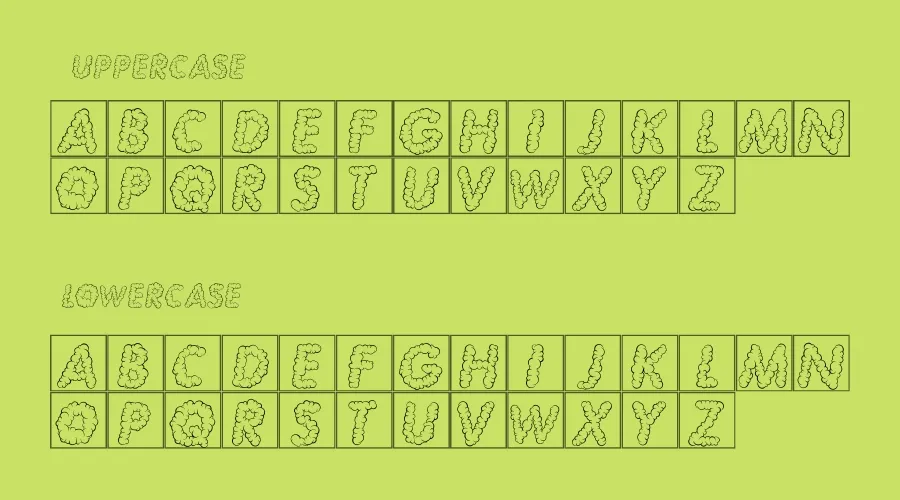
Nubles Font
About Nubles Font
Stefi Bert designed Nubles Font it is a Decorative typeface this font was created for headers and other brief text blocks. It may add extra fun to any design and is ideal for creating a feeling of wonder it has a free version.
This typeface is a great option if you want a typeface that will grab attention. The typeface blends in well with other types and can operate delicately when combined with Adobe Arabic font.